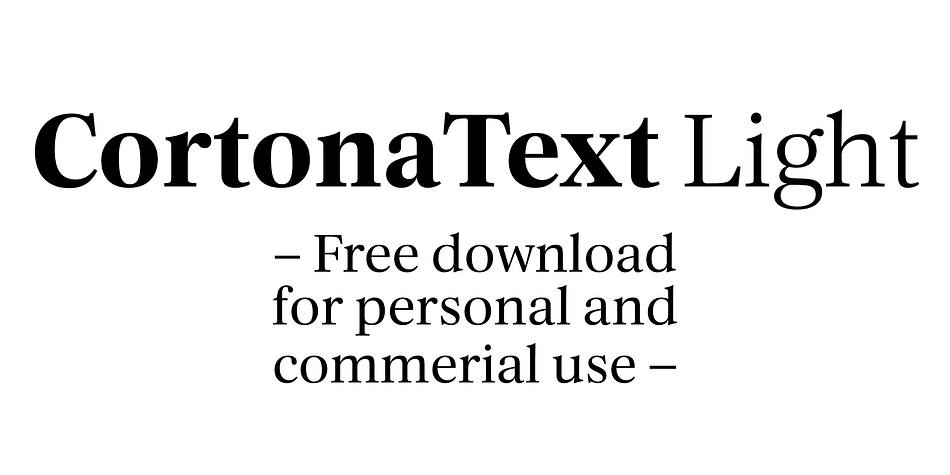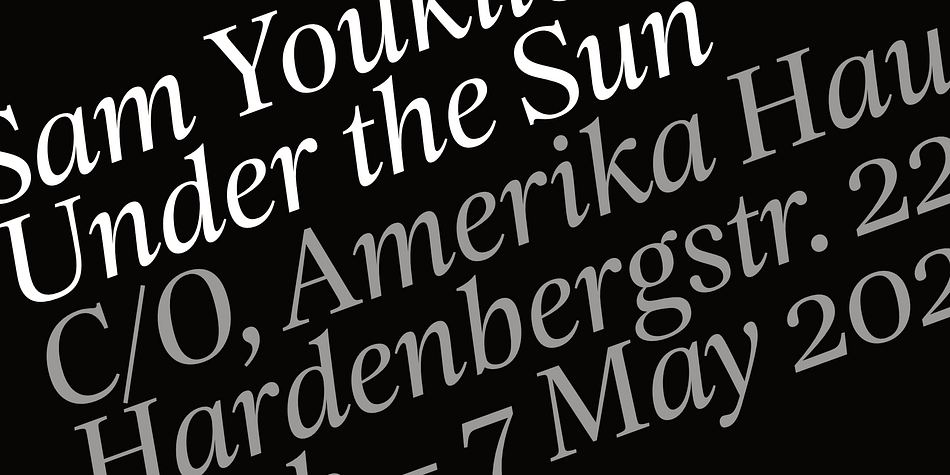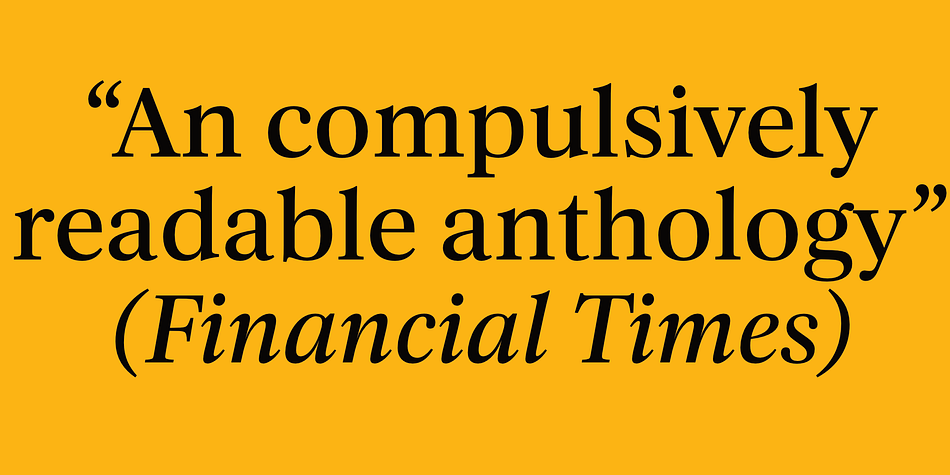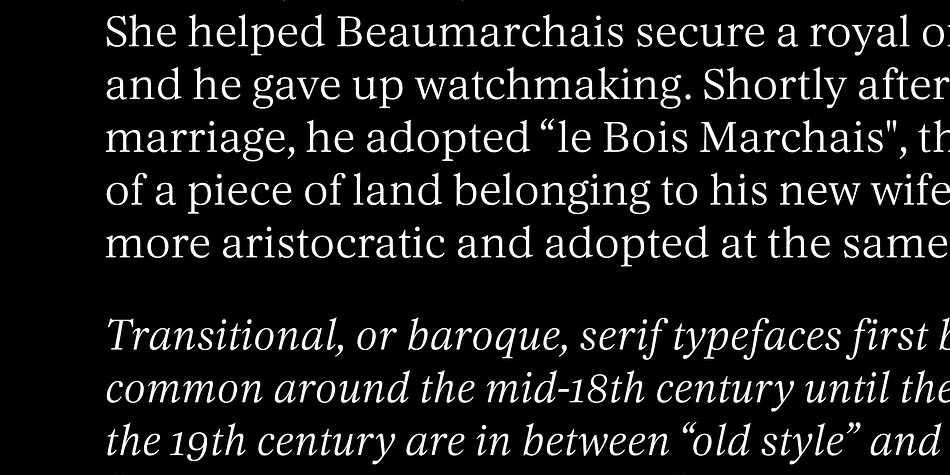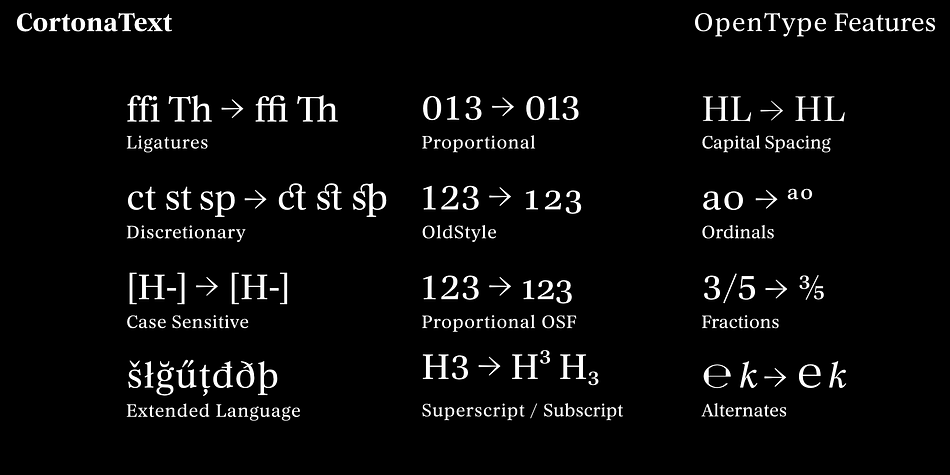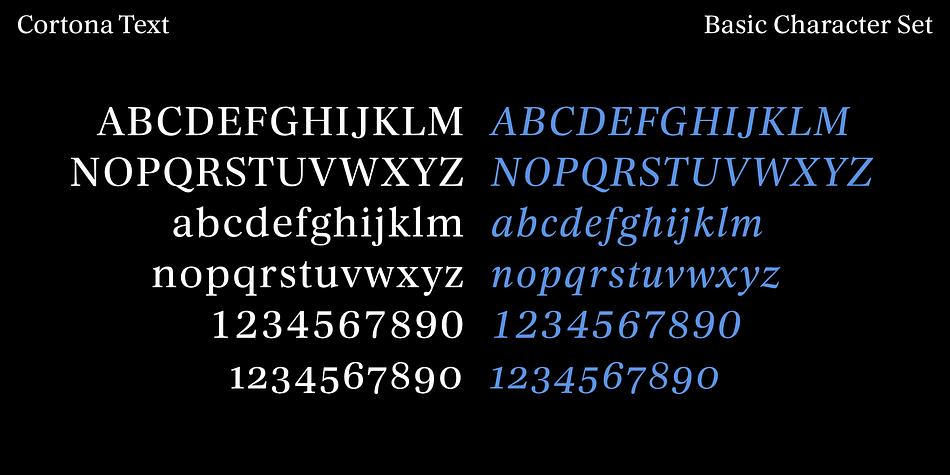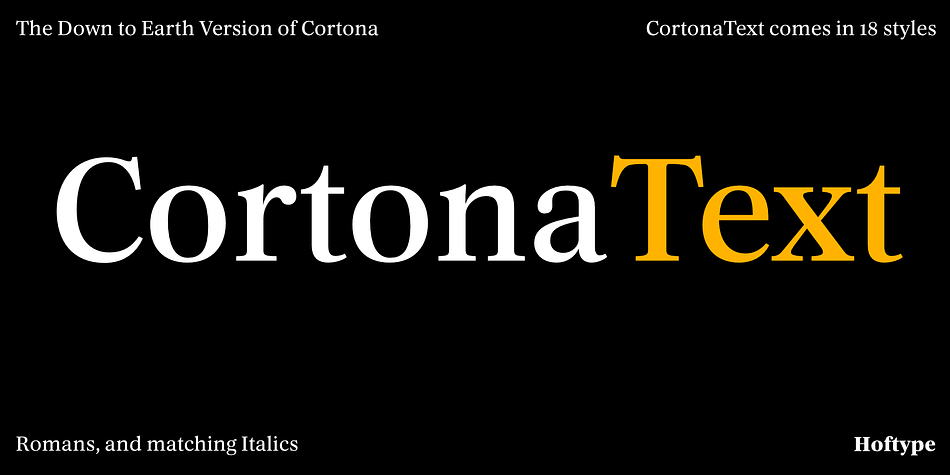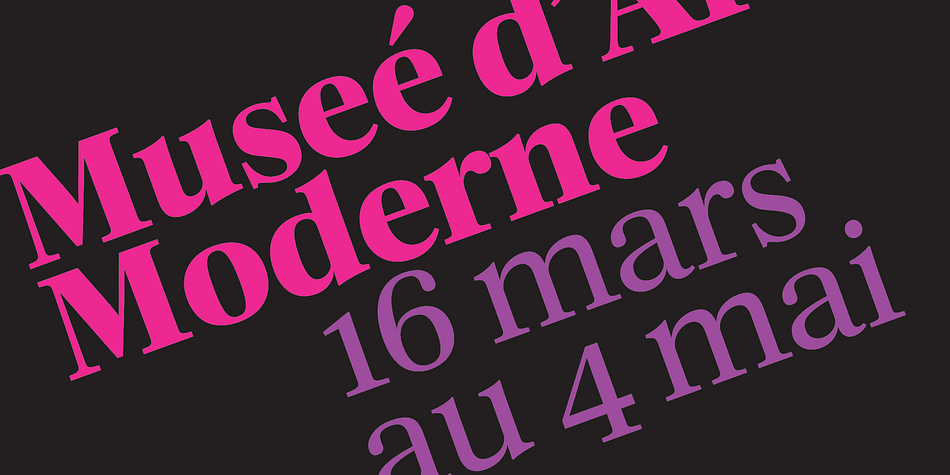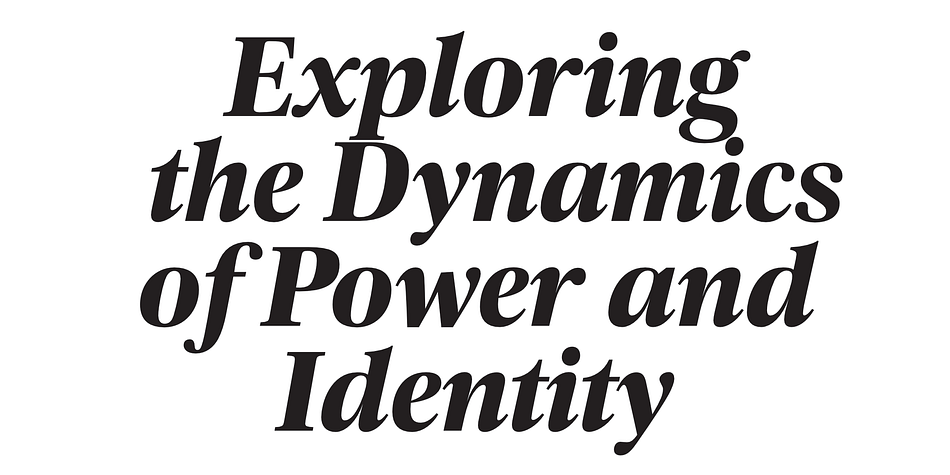
Cortona Text
Designed by Dieter Hofrichter, Cortona Text is a serif font family. This typeface has eighteen styles and was published by Hoftype.
The Cortona family represents a new approach to the Category of transitional typefaces
as Times, Concorde, Baskerville, Romain du Roi, from a contempory focus.
Cortona and Cortona Text unites excellent vintage quality with classic elegance.
The Cortona family consists of 18 styles, provides many features which allow its application for ambitious typography.
It comes in OpenType format with extended language support. All weights contain small caps, ligatures, superior characters, proportional lining figures, tabular lining figures, proportional old style figures, lining old style figures, matching currency symbols, fraction- and scientific numerals, matching arrows and some alternate characters.